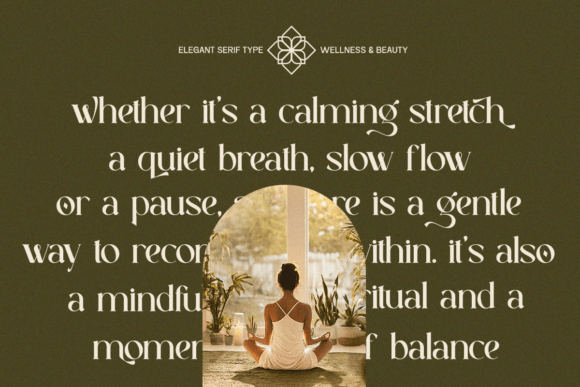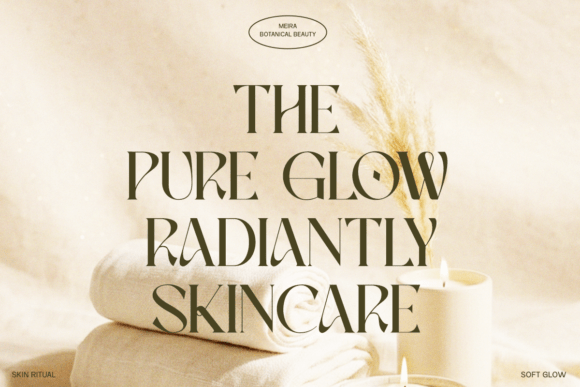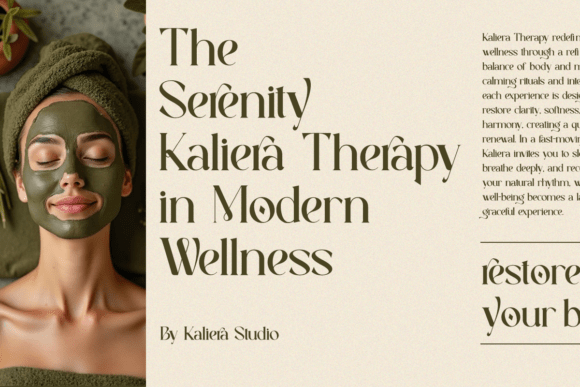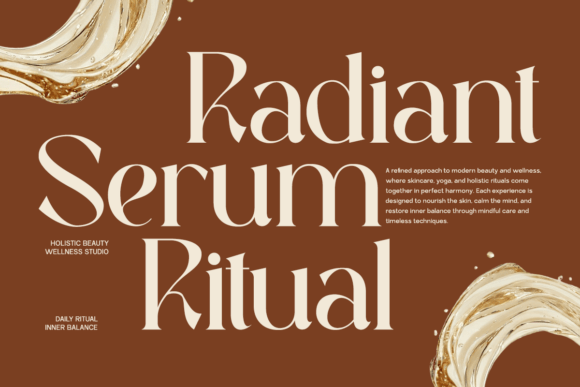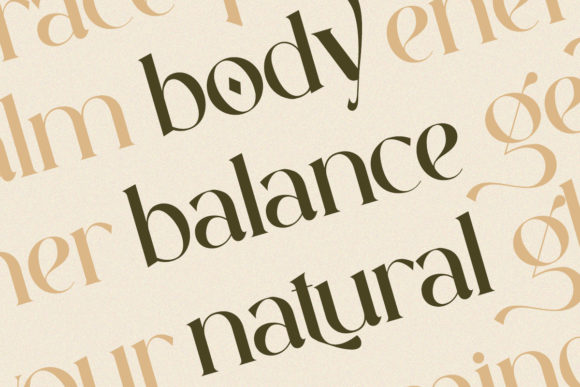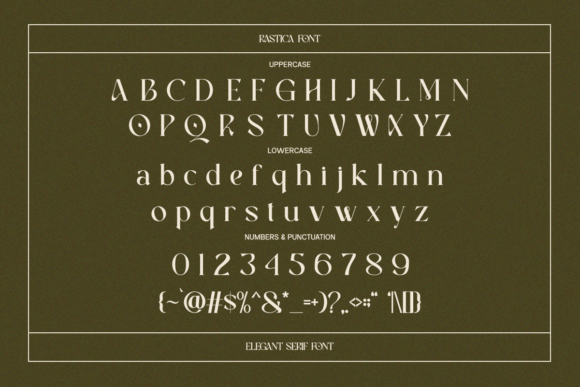
Introduction to Rastica Font
Have you ever been working on a creative project, pouring over design elements and typography, trying to find that perfect combination that evokes the tone you’re aiming for? For many designers, this is a daily struggle. But what if you had a design resource that could instantly elevate your work, giving it a luxurious and refined feel that leaves a lasting impression? Enter the Rastica Font, a modern elegant serif font designed to bring a sense of calm sophistication to your designs.
With its unique blend of softness and strength, the Rastica Font is the perfect tool for designers looking to create high-end typography compositions that exude elegance and refinement. Whether you’re working on a beauty branding project, a wellness product packaging design, or a premium marketing material, the Rastica Font delivers a timeless and polished aesthetic that’s sure to impress.
Key Features of Rastica Font
- Unique and creative font design ideal for various creative projects
- High-quality, professional font suitable as a design resource for graphic designers and artists
- Comes with a transparent background, allowing for versatile design applications
- Perfect for use in logos, branding materials, and other design elements requiring a distinctive and modern look
Honest Review: Rastica Font
As a designer, I’m always on the lookout for high-quality design resources to elevate my creative projects. Recently, I had the chance to work with the Rastica Font, and I’m excited to share my honest review.
What works well: ✨ The Rastica Font is incredibly versatile, making it perfect for a wide range of design applications, from logos to web design. Its modern and sleek design gives any project a professional touch. I also appreciate the transparent background, which allows for seamless integration with other design elements.
What doesn’t work so well: ⚠️ While the Rastica Font is free to download, I noticed that it’s not available in as many font sizes as I’d like. This can be a limitation for complex design projects that require multiple font sizes.
Overall, I’m impressed with the Rastica Font. Its high quality and versatility make it a valuable addition to any designer’s toolkit. Whether you’re working on a logo, brochure, or website, the Rastica Font is definitely worth considering.
- Modern and sleek design
- Perfect for logos, web design, and more
The Rastica Font is a versatile design resource ideal for creative projects requiring a unique touch. Its transparent background and high-quality design make it an excellent addition to any design collection.
The Rastica Font is ideal for use in creative projects such as graphic design, digital art, and typography. Its unique design and transparent background make it an excellent choice for creating eye-catching designs and graphics.